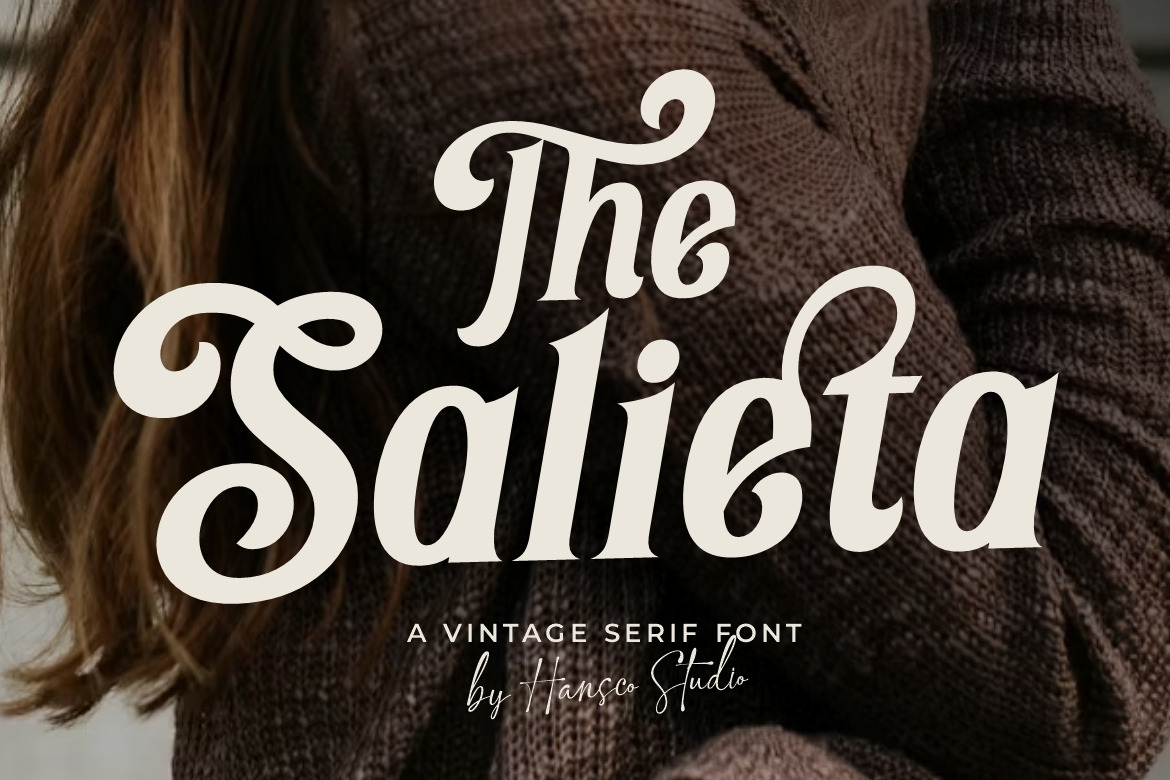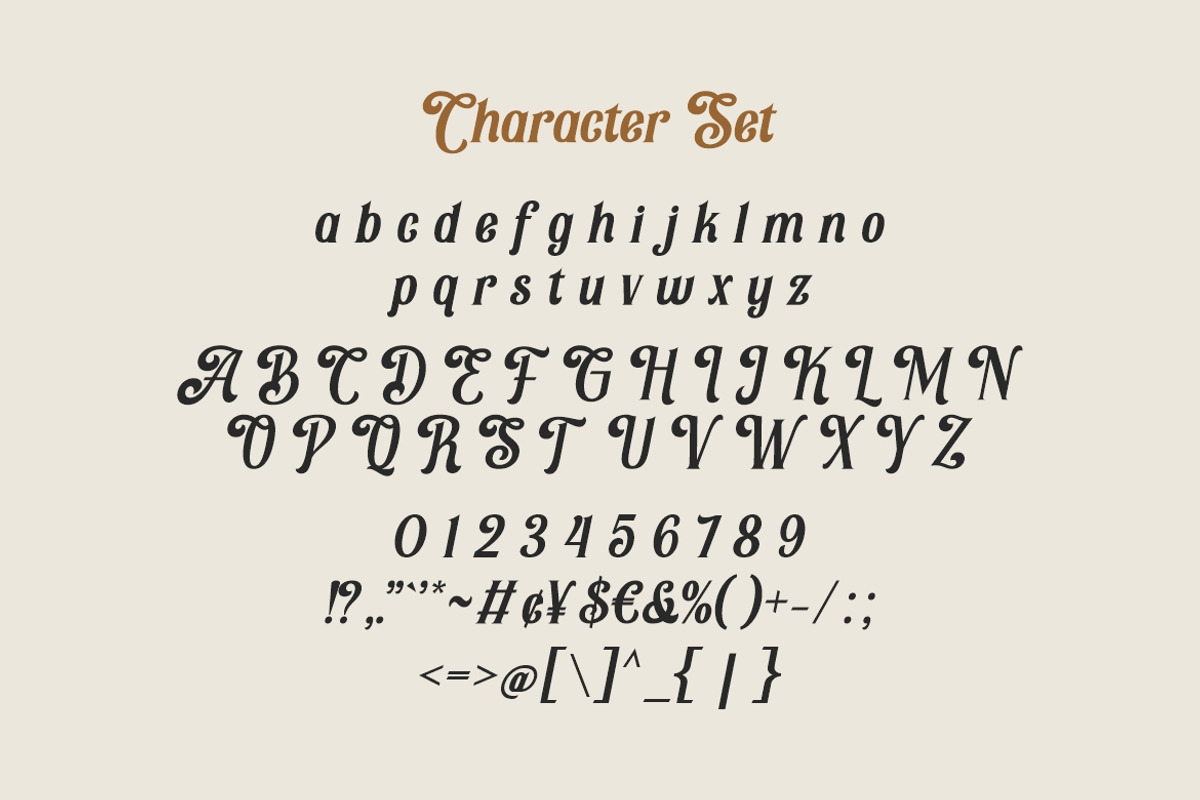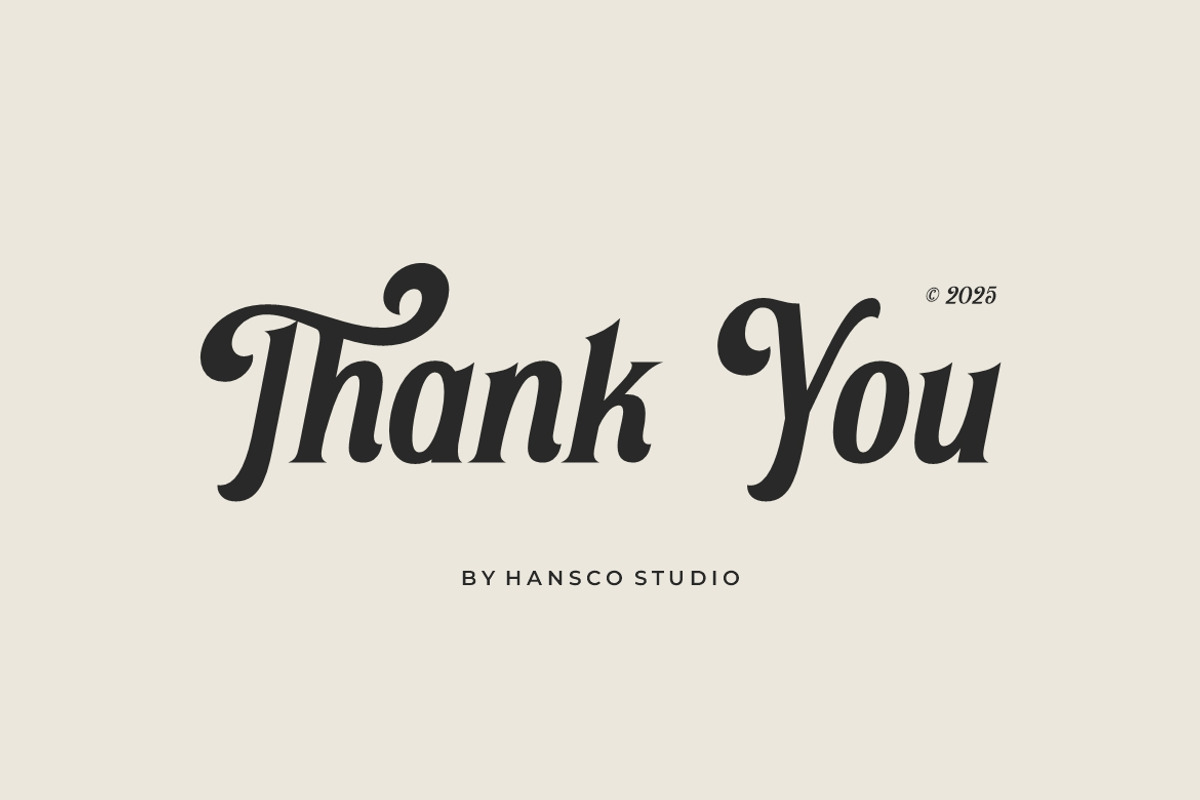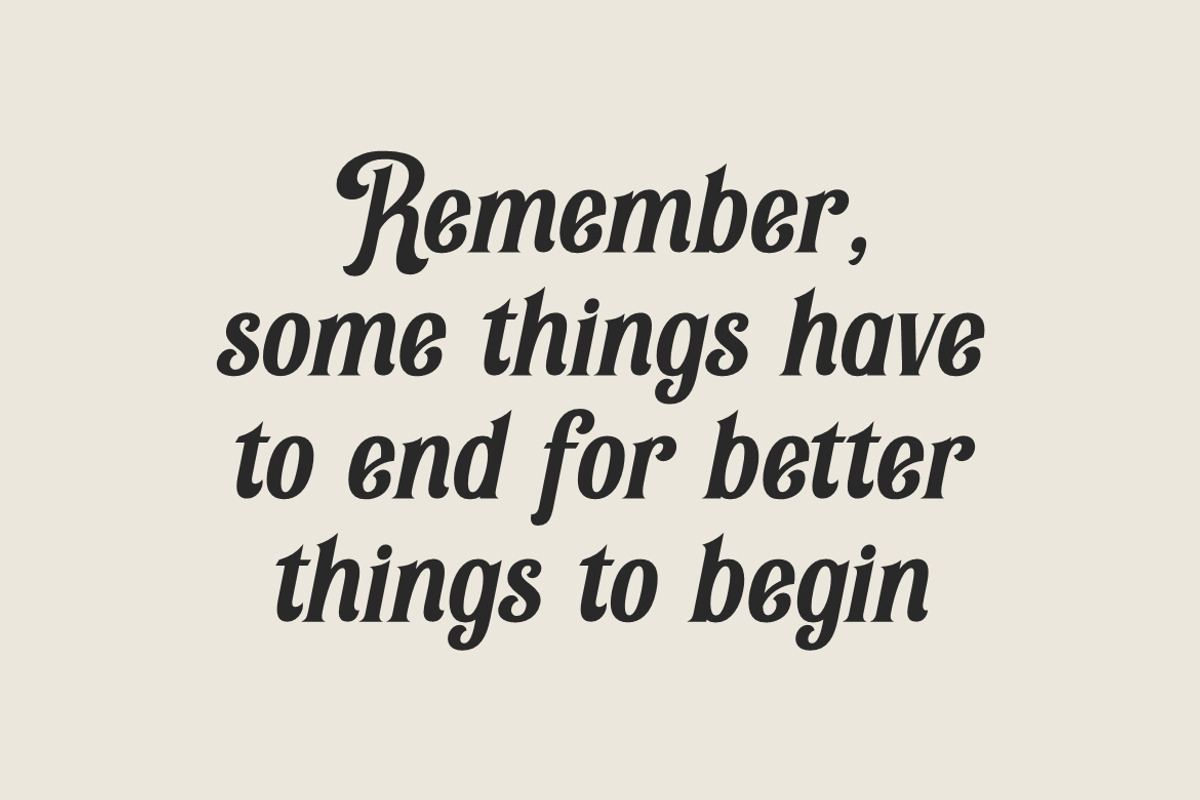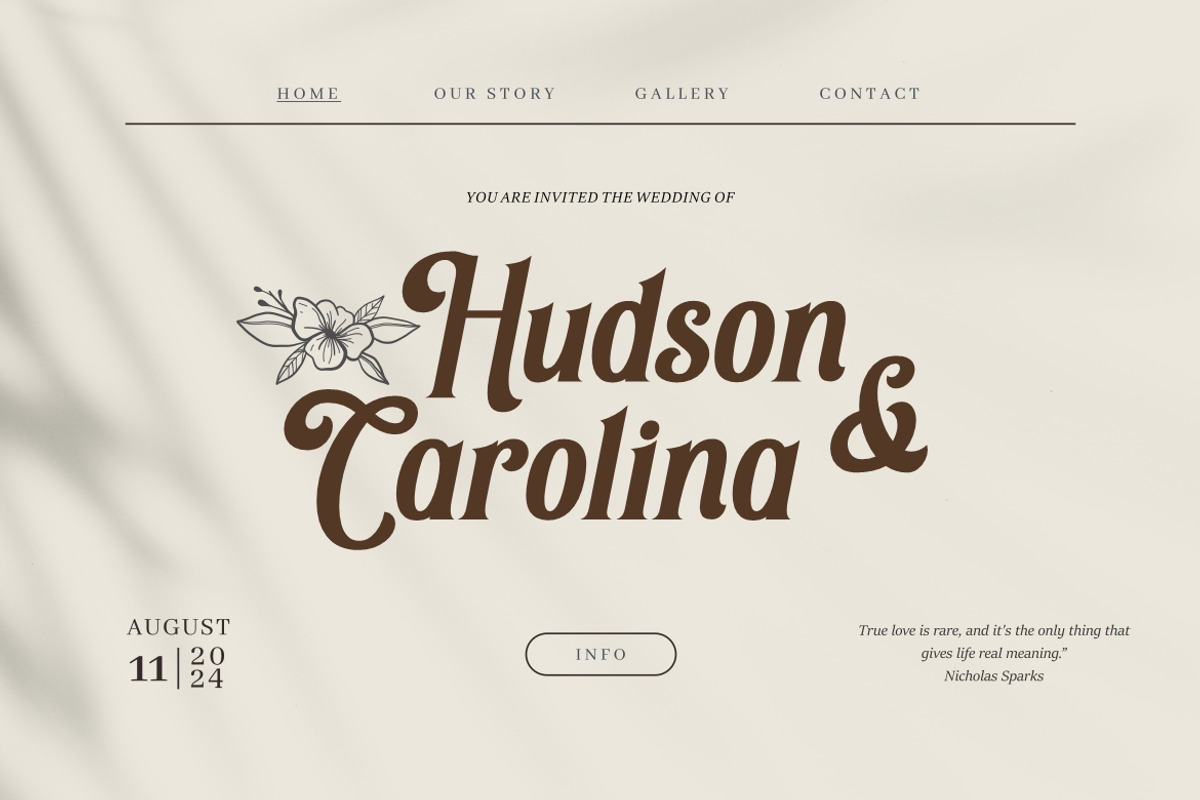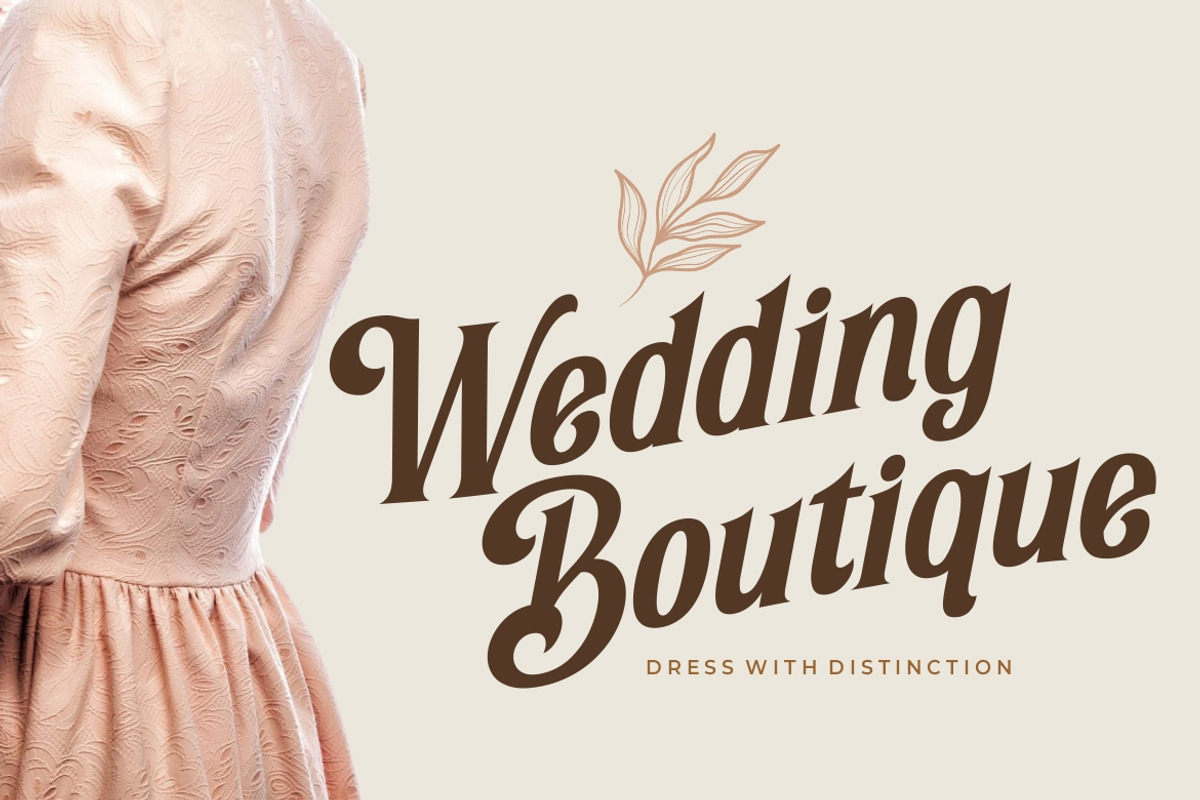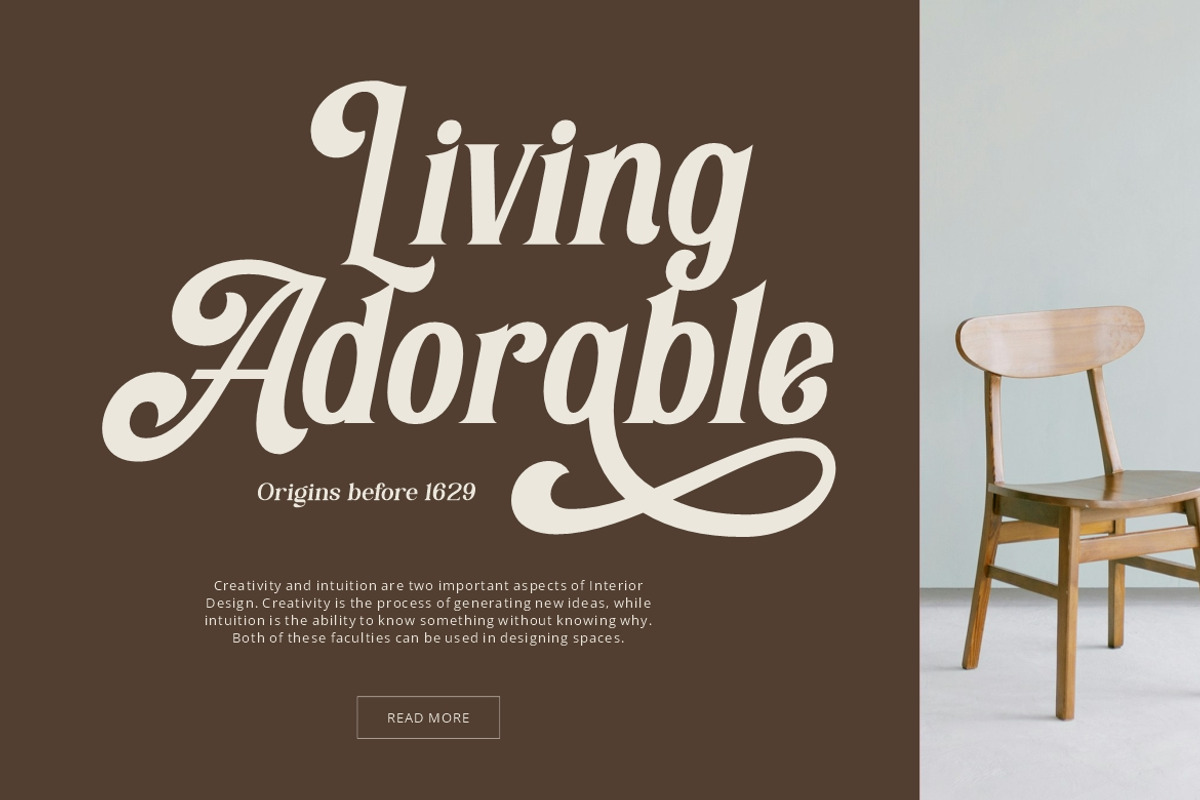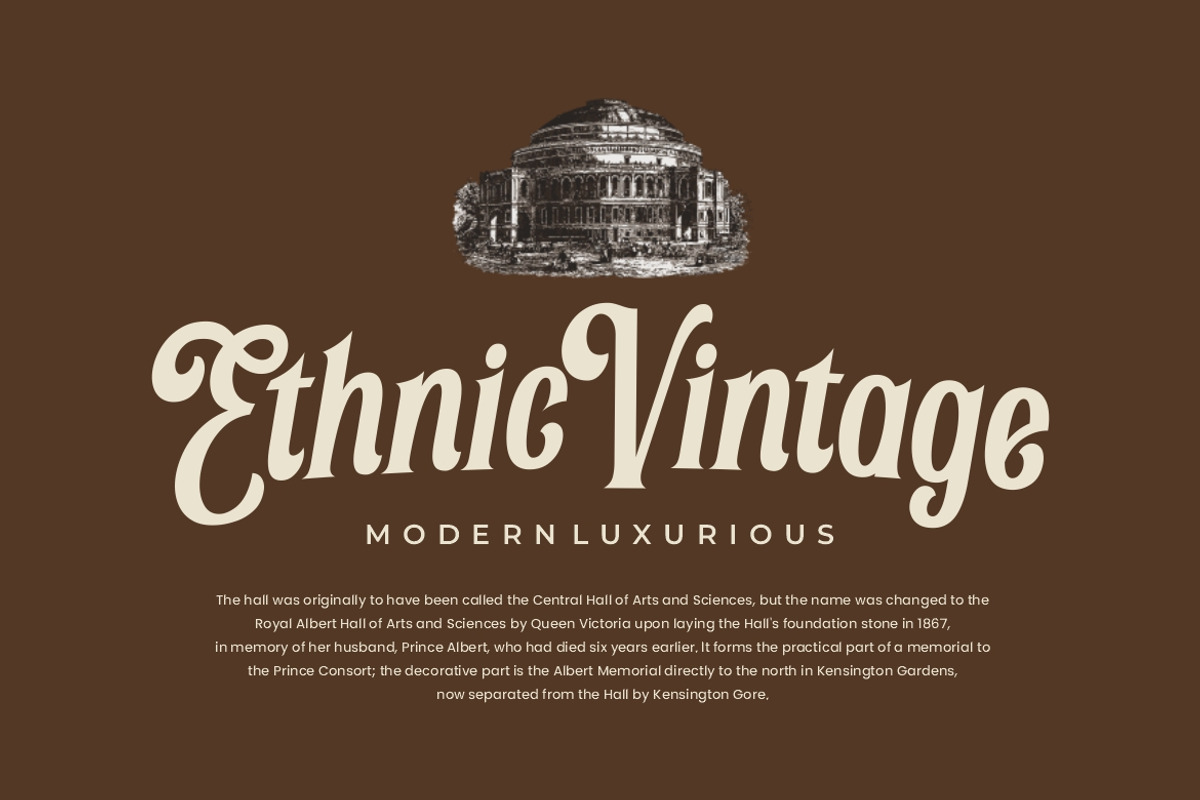
The Salieta Font
The Salieta Font is a regular and classy display serif font. It features an incredibly luxury and vintage style, while still keeping a elegant feel. this font is perfect for making designs project especially for those of you who want something classy with a sharp swash style in characters on your logo or brand. It’s great for branding, logo designs, logotype, craft, posters, packaging and much more. You will also get several alternative characters on lowercase, uppercase and ligature in them, so that it will provide many great choices in your design. Comes with a full uppercase, lowercase, numbers, punctuation and multilingual support.
Number & Punctuation
Multilingual Supports
Ligature & Alternate character (for some character)